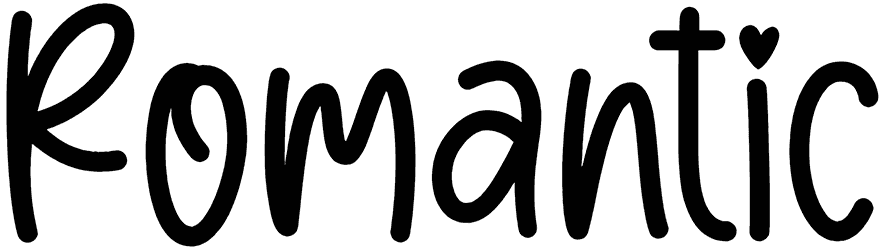
Romantic Font
Sounding fun and friendly in your text is no longer a big deal. After all, that’s why you have this gorgeous heart font in front of you. Romantic is not just the best choice for designing website headers based on the theme of Valentine’s Day though.
It basically functions as a romantic font with a nice handwritten style, ideal for any celebrations such as birthday invitations, promotional content for Girl’s Day on your social media, and everything else like that.